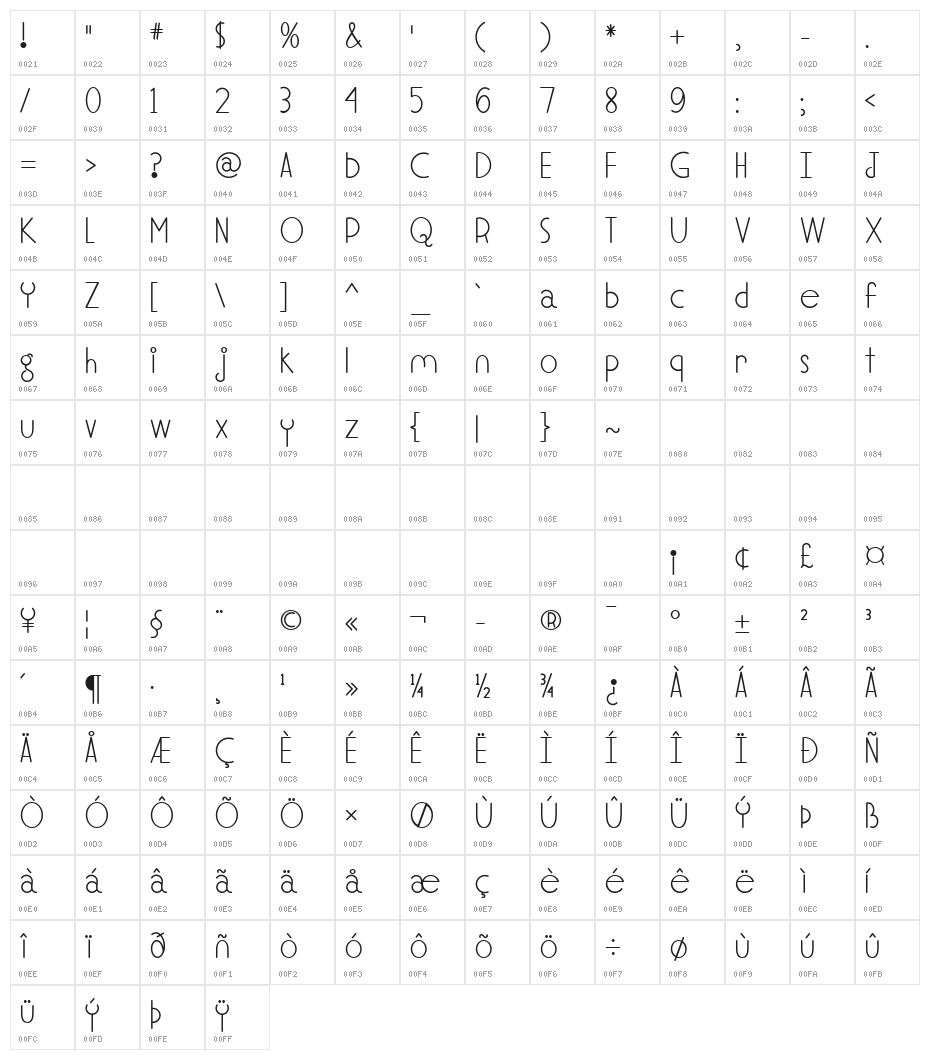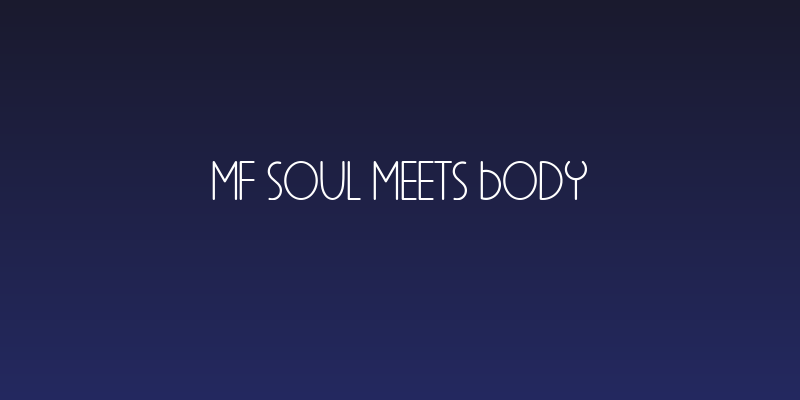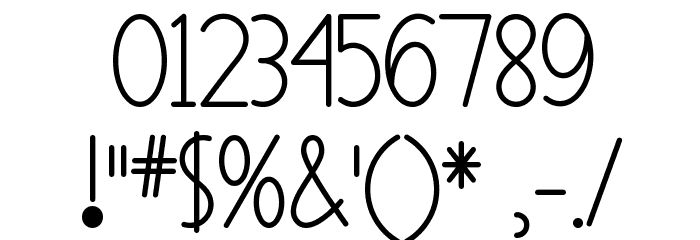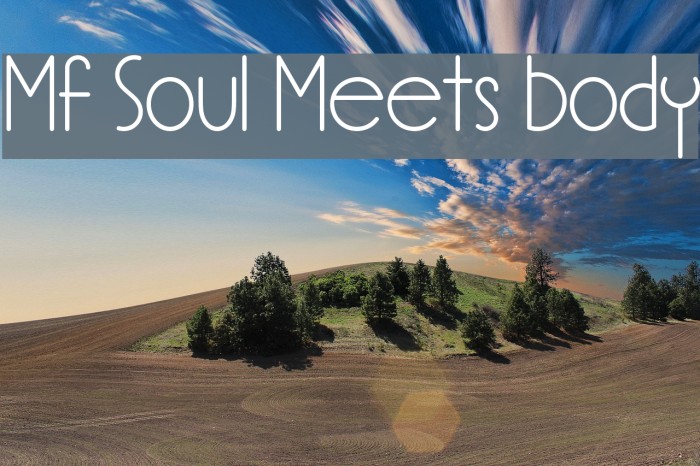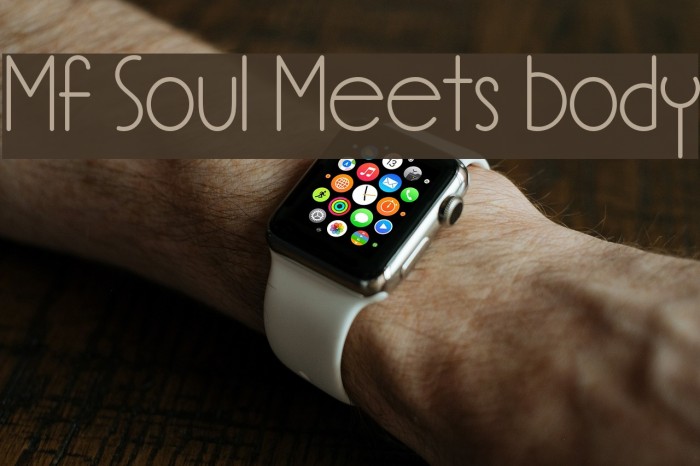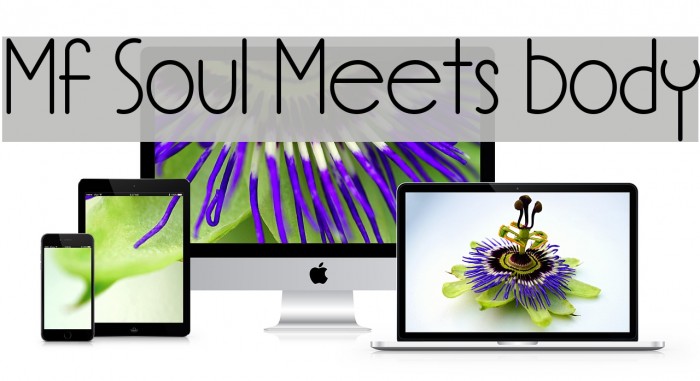
Mf Soul Meets Body Font
Mf Soul Meets Body Description
This font features a clean, geometric design with a modern aesthetic. The characters are crafted with smooth curves and consistent line thickness, giving it a sleek and contemporary look. The uppercase letters are slightly taller than the lowercase, providing a subtle distinction that enhances readability. The numerals are well-proportioned and align seamlessly with the letters, maintaining a uniform appearance. Special characters are included, each designed to match the overall style, making this font versatile for various applications.